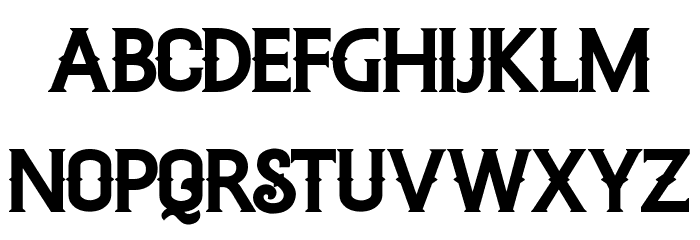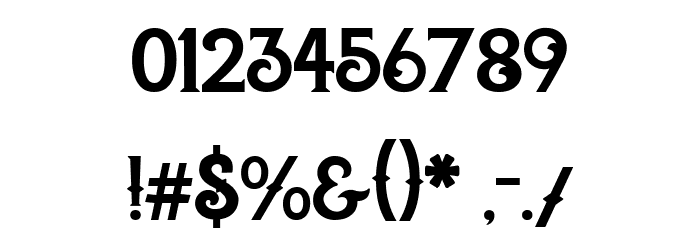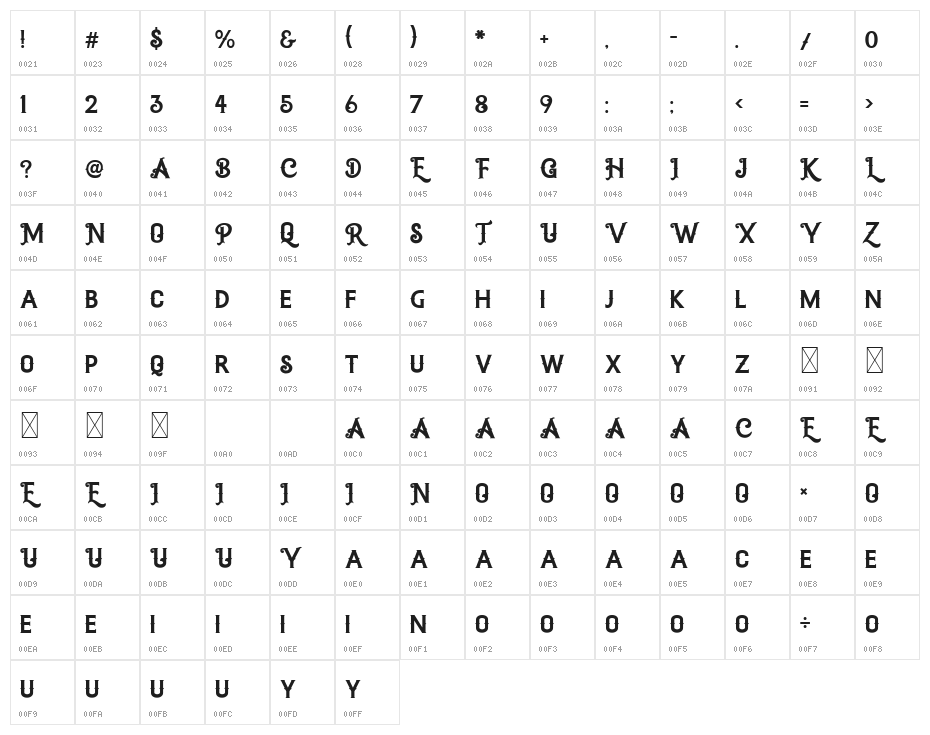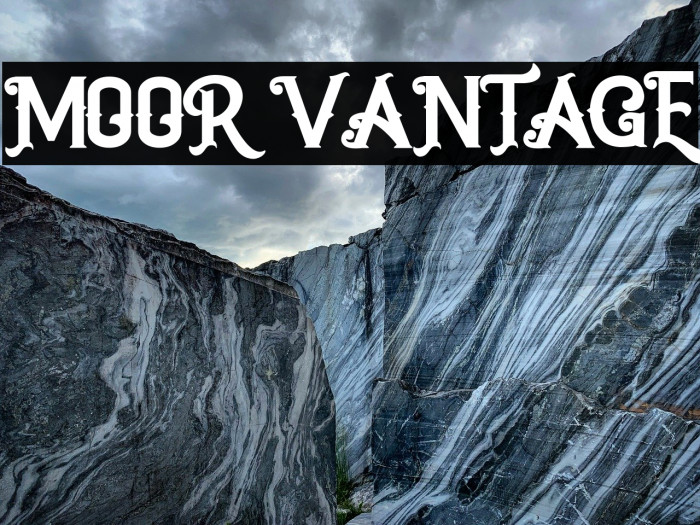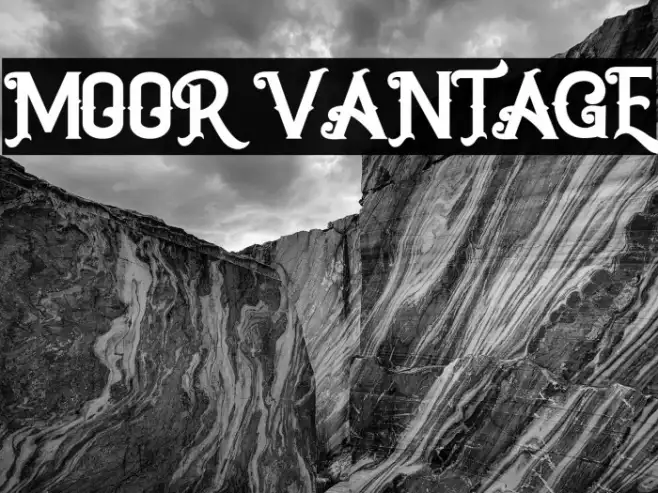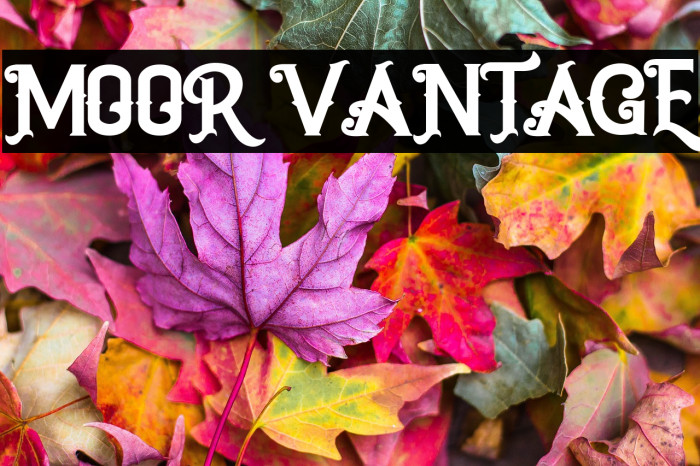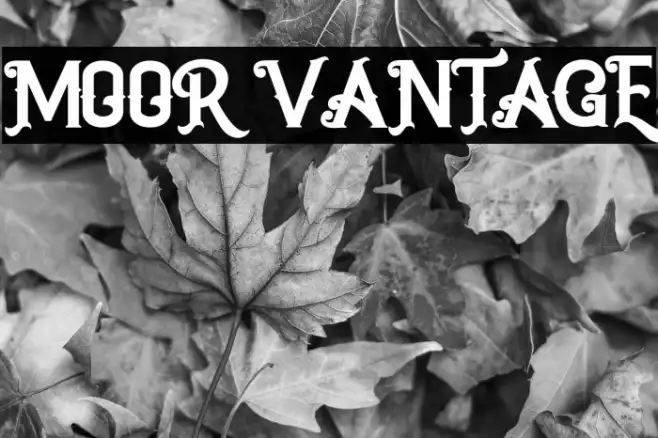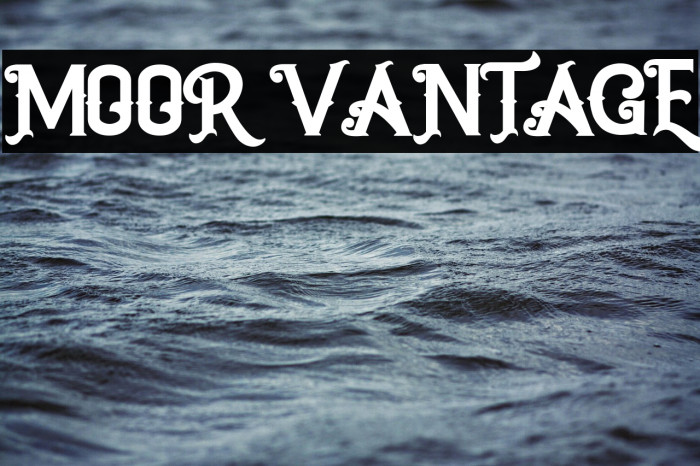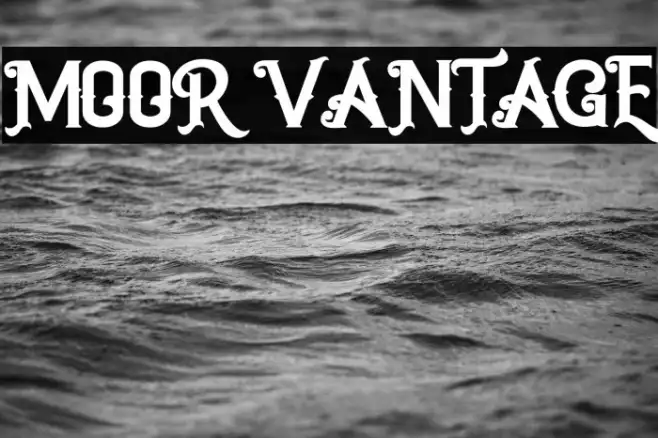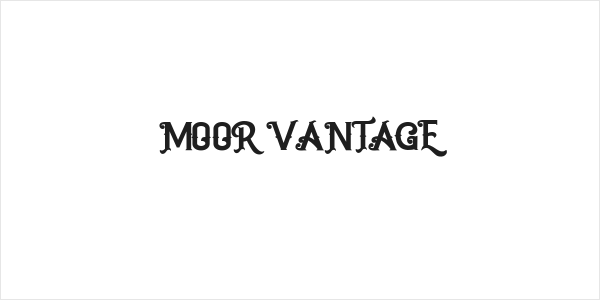
MOOR VANTAGE Font
This font features a bold and decorative style with a distinct vintage flair. The uppercase letters are characterized by intricate serifs and flourishes, giving them a dramatic and ornate appearance. The lowercase letters maintain a consistent style, complementing the uppercase with their own subtle embellishments. The numbers are bold and clear, matching the overall aesthetic of the font. Special characters are designed with the same attention to detail, ensuring a cohesive look across all glyphs. The font's unique style makes it suitable for projects that require a touch of elegance and historical charm.
A bold, decorative font with vintage flair and intricate serifs.
- Proposed Projects: Ideal for vintage-themed posters, branding, book covers, and decorative signage.
- Overall Style: Vintage
- Use Case: Headlines, Logos, Decorative text